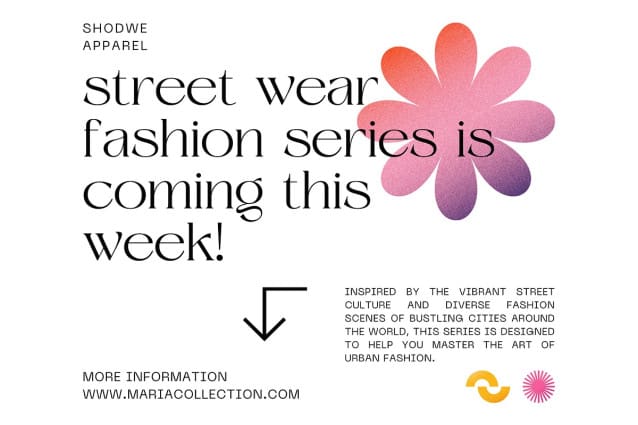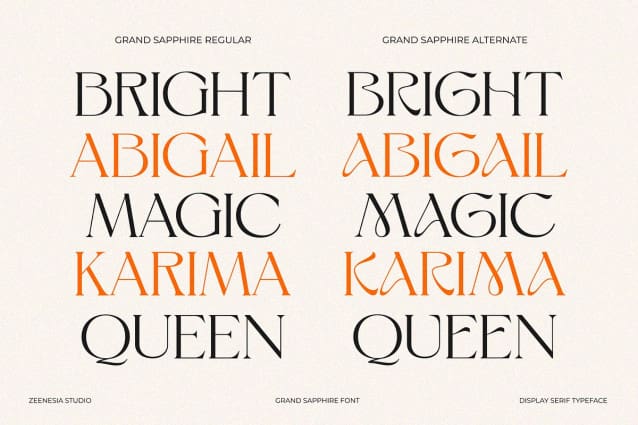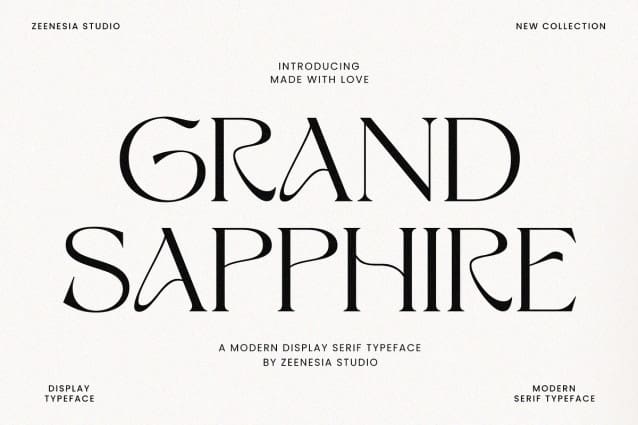
Grand Sapphire Font
Grand Sapphire Font is a beautiful and feminine serif font designed with a romantic and lovely aesthetic. Grand Sapphire offers two complementary styles: regular and alternate. This versatility enhances creative possibilities, allowing for extraordinary imagination and design flexibility. Despite its ornate design, GrandSapphire maintains high readability, making it suitable for both headlines and body text. It is more than just a font; it’s a tool to bring your most beautiful and imaginative designs to life. Whether you’re creating elegant wedding invitations, heartfelt letters, or sophisticated branding materials, Grand Sapphire provides the perfect blend of romance and elegance.